Clever, well‑crafted typefaces to light up your designs
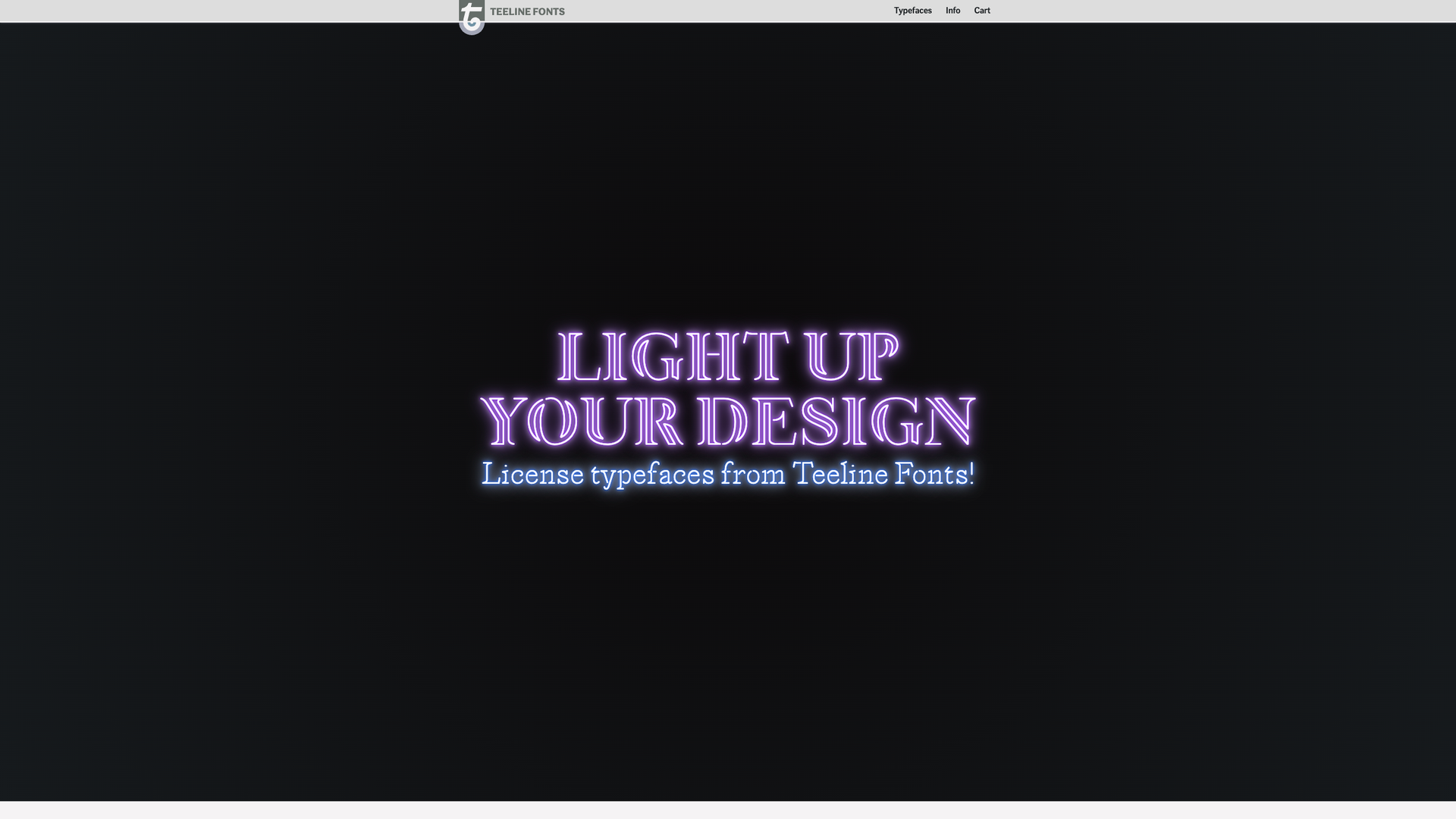
Teeline Fonts is a digital type foundry offering a curated collection of uniquely designed fonts. Each typeface is meticulously crafted for versatility, from modern sans‑serifs to expressive display styles. Licenses are available for desktop, web, and app use, letting designers add personality and clarity to any project.